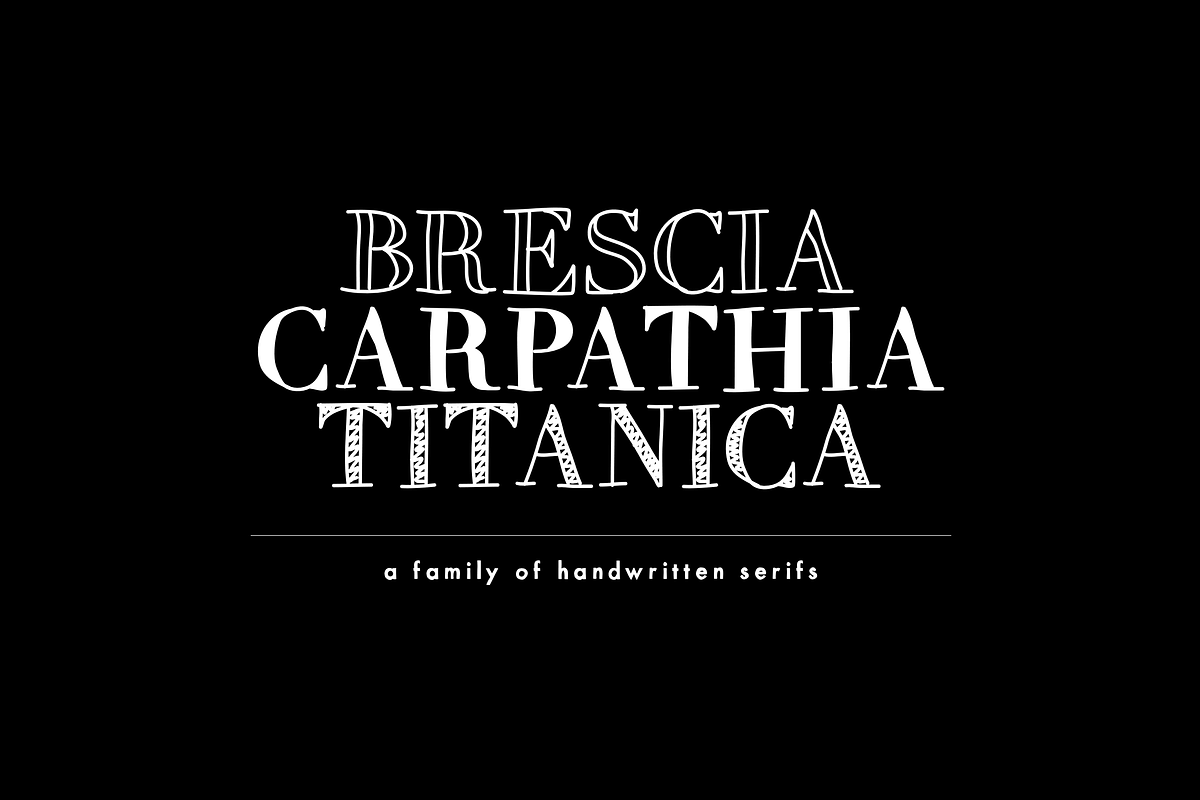
A Trio of Handwritten Serifs Font Free Download is a unique and versatile font bundle that includes three distinct handwritten serif typefaces. Combining the elegance of serif design with the personal touch of handwritten letterforms, this trio is perfect for branding, invitations, editorial layouts, product packaging, and modern designs that need both sophistication and warmth.
Each font in A Trio of Handwritten Serifs Font Free Download brings its own charm and character, giving you the flexibility to choose the perfect style for your project—whether you need something bold, refined, or casual.